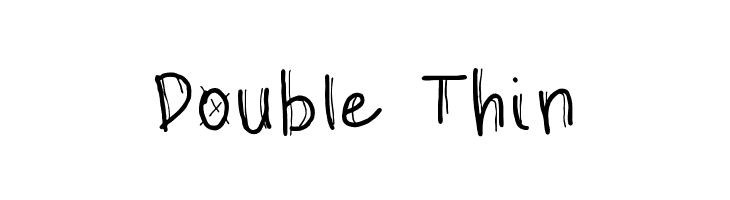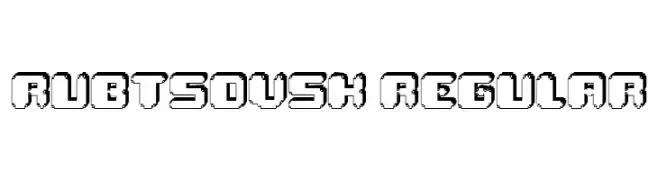
A sleek, futuristic font with rounded edges and a slight italic slant.
A thin, italicized font with a futuristic and geometric style.
A sleek, modern italic font with a futuristic design.
A modern, thin, geometric font with a minimalist style.
A bold, modern font with a futuristic and geometric design.
A dynamic brush-style font with bold, angular strokes and a handwritten feel.
A playful, casual handwritten font with smooth, flowing lines.
A bold, playful script font with a casual, handwritten style.
A fluid and elegant script font with an italic slant.
A bold, shadowed font with a playful, three-dimensional style.
A bold, modern font with strong, thick strokes and tight spacing.
A bold, italic font with tight spacing and high contrast, ideal for dynamic designs.
A bold, italic font with smooth curves and a modern, dynamic style.
A modern, geometric sans-serif font with smooth, rounded edges.
A sleek, modern, and light italic font with elegant elongated characters.
A bold, modern sans-serif font with clean, rounded edges and uniform stroke width.
A sleek, modern italic font with smooth curves and consistent stroke width.
A sleek, modern font with clean lines and a minimalist aesthetic.
A modern, geometric font with a clean and minimalist design.
A bold, geometric font with a modern and structured design.
A modern, italicized font with sleek, elongated characters and consistent stroke weight.
A bold, italic, modern font with geometric shapes and medium contrast.
A clean, geometric font with a modern, minimalist design.
A modern, light, and italicized font with a sleek geometric design.
A bold, rounded serif font with a playful and decorative style.
A bold, outlined font with a playful and engaging style.
A bold, modern font with a clean geometric design and uniform stroke width.